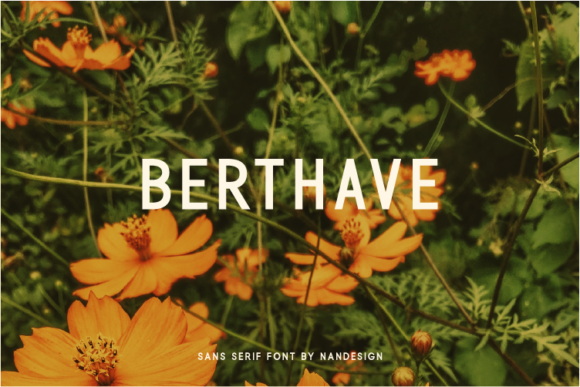
Have you ever been working on a design project, staring at a blank page, and suddenly the perfect font pops into your mind? That’s exactly what happened to me when I first laid eyes on the Berthave Font. Its modern and sophisticated design immediately caught my attention, and I knew I had to learn more.
The Berthave Font is a masterfully designed sans serif font that’s perfect for logos, branding, packaging design, and much more. Its extended characters make it particularly adept at conveying a sense of professionalism and style. As a designer, I can attest to the value of having a versatile font like Berthave Font in your toolkit. Whether you’re working on a personal project or a client-based design, this font is sure to elevate your work to the next level.
Berthave Font Key Features
- Character Set: The font includes a comprehensive set of characters, including Latin, Greek, and Cyrillic scripts, making it suitable for multilingual designs.
- Unique Characteristics: The Berthave Font features a distinctive, elegant design with intricate details and subtle flair, making it ideal for high-end branding, publishing, and packaging projects.
- Font Styles: The font family includes various styles, such as Regular, Italic, Bold, and Bold Italic, providing designers with flexibility to create visually appealing typography.
Review of Berthave Font
Overall, I think Berthave Font is a solid choice for designers looking for a clean, modern sans-serif font. ✨ The font’s geometric shapes and sharp lines give it a contemporary feel that would work well for a wide range of projects, from tech startups to fashion brands.
The font’s legibility is also noteworthy, making it a great choice for body text. The font’s x-height is well-proportioned, which helps to improve readability, especially at smaller font sizes.
However, there are a few limitations to consider: ⚠️ the font’s character set is not as extensive as some other popular sans-serif fonts, which may limit its use in certain languages or for specific applications. Additionally, the font’s bold weight is not as heavy as some designers may prefer.
- Modern, geometric design
- Sharp lines and clean shapes
- Good legibility
- Well-proportioned x-height
Overall, I think Berthave Font is a great choice for designers who value simplicity and modernity. While it may have some limitations, its strengths make it a solid addition to any design arsenal.
Tips for Getting the Most Out of Berthave Font
To get the most out of the Berthave font, consider the following tips:
- Use Berthave font for titles and headings to add a touch of elegance.
- Combine Berthave with other elegant fonts to create a sophisticated design.
- Experiment with different font sizes and colors to add visual interest.
The Berthave font is commonly used in:
- Formal business presentations and reports.
- High-end branding and marketing materials.
Playfair Display is a luxurious, elegant font ideal for use in high-end branding, magazine titles, and special occasion invitations. Its intricate details and refined lines evoke a sense of sophistication and glamour. It compares to Berthave Font in its ornate and elegant style, but has a more refined and luxurious feel.
Didot is a classic, elegant serif font often used in high-end fashion and luxury branding. Its clean lines and refined details give it a sophisticated and timeless feel. While it shares some similarities with Berthave Font in terms of elegance, it has a more classic and timeless feel.